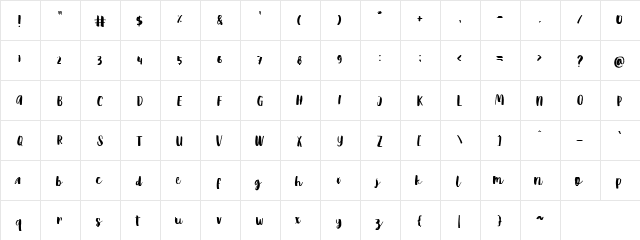
Reckless Brush Regular
Design Context for Reckless Brush Typeface
Reckless Brush brings a calligraphic fluidity to the page — its connecting strokes and expressive curves give it an unmistakably human quality.
Font Pairing: Combine Reckless Brush with a simple geometric sans for maximum contrast — the tension between flowing curves and clean structure is a classic typographic pairing.
Pro Tip: Pair Reckless Brush with a clean sans-serif for supporting text. The contrast between fluid script and geometric structure creates an elegant typographic hierarchy.